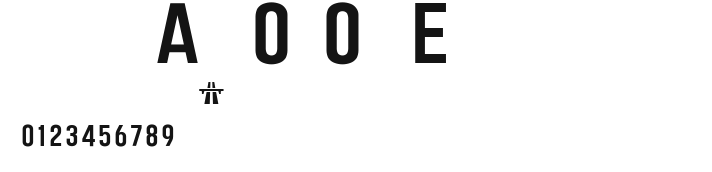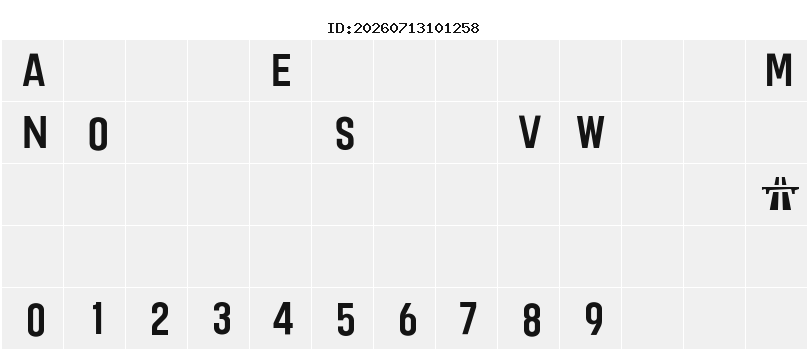
Raoul AUTOROUTE Britannique Preview
• Font Name: Raoul AUTOROUTE Britannique
• Designer: Raoul & Compagnie
• Description: Font used in British Motorway Road Signs + Contains the "Motorway" Symbol - Police utilisée pour la Signalisation des Autoroutes Britanniques + Contient le symbole "Autoroute" PROUDLY MADE IN FRANCE by Raoul & Compagnie
Raoul AUTOROUTE Britannique.ttf is a modern, elegant sans-serif font designed for ultimate readability and visual harmony. Perfect for branding, headlines, web design, and print materials.